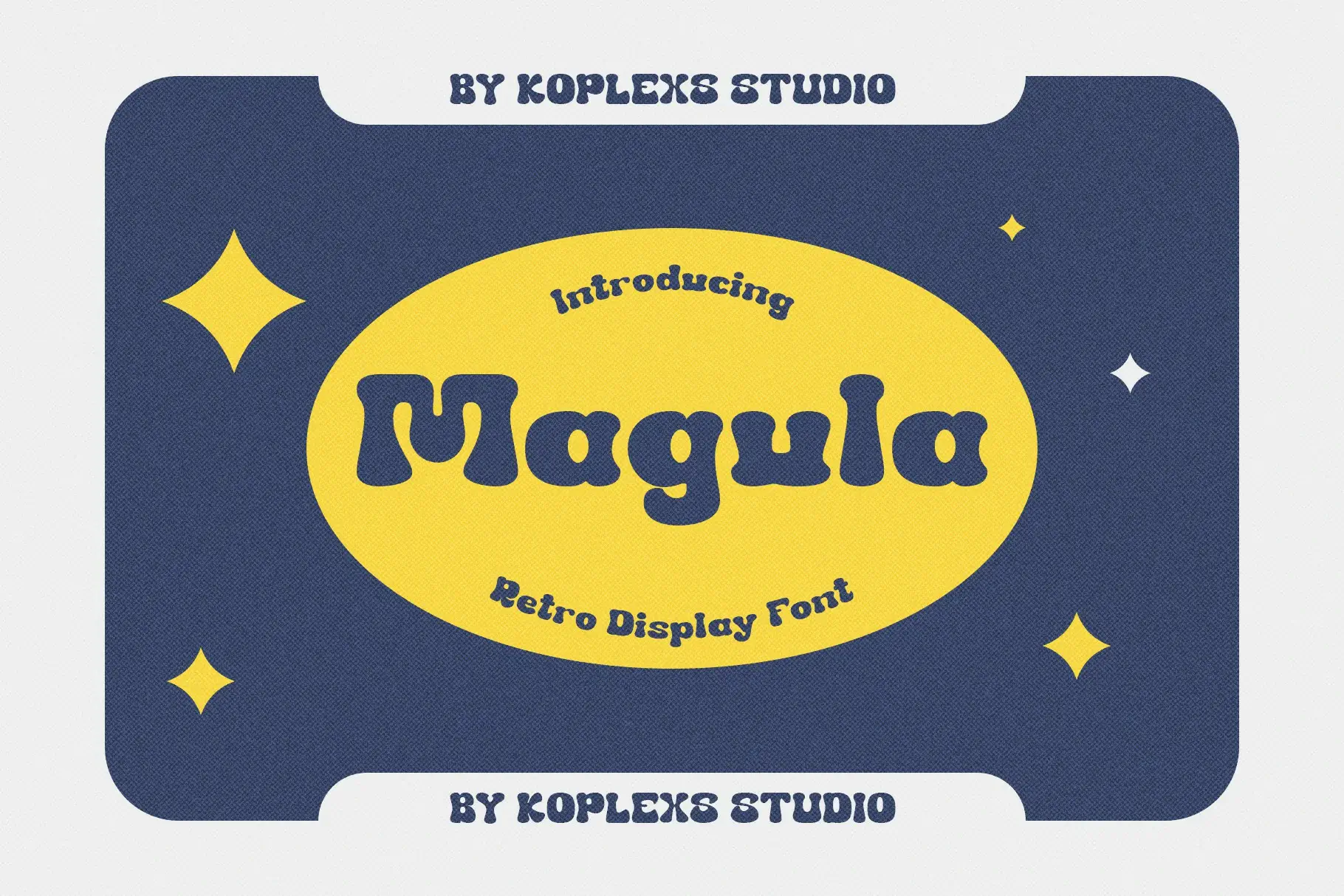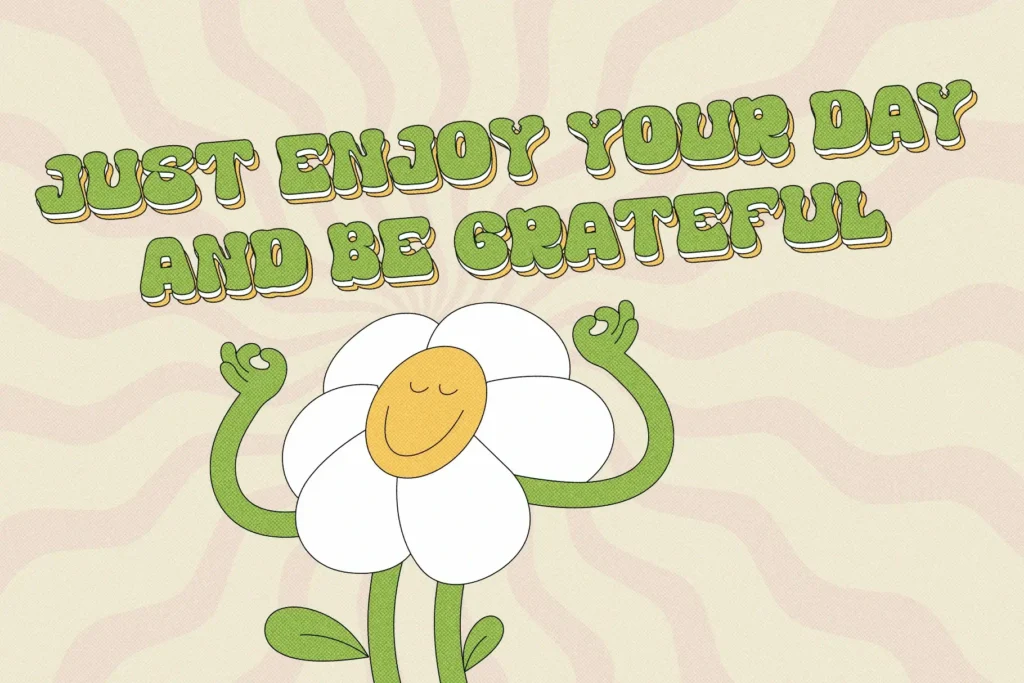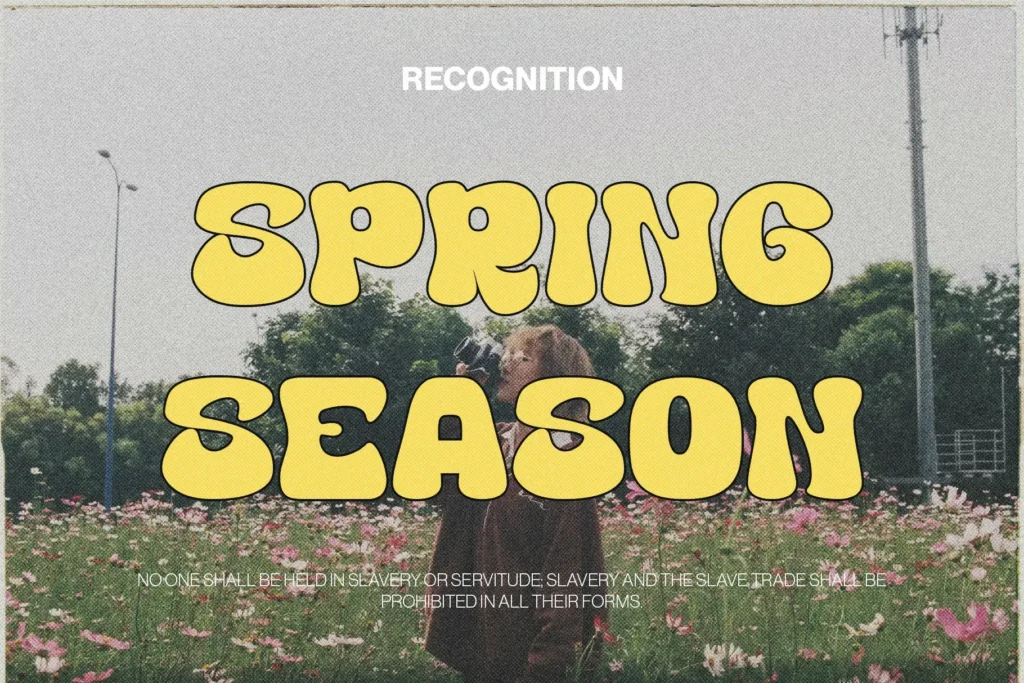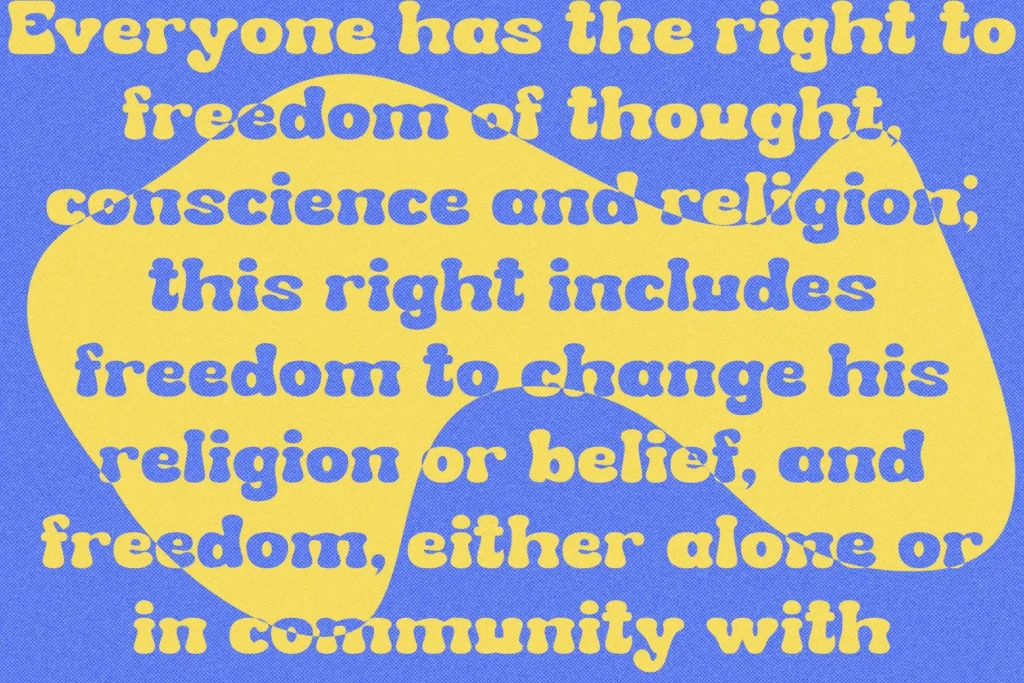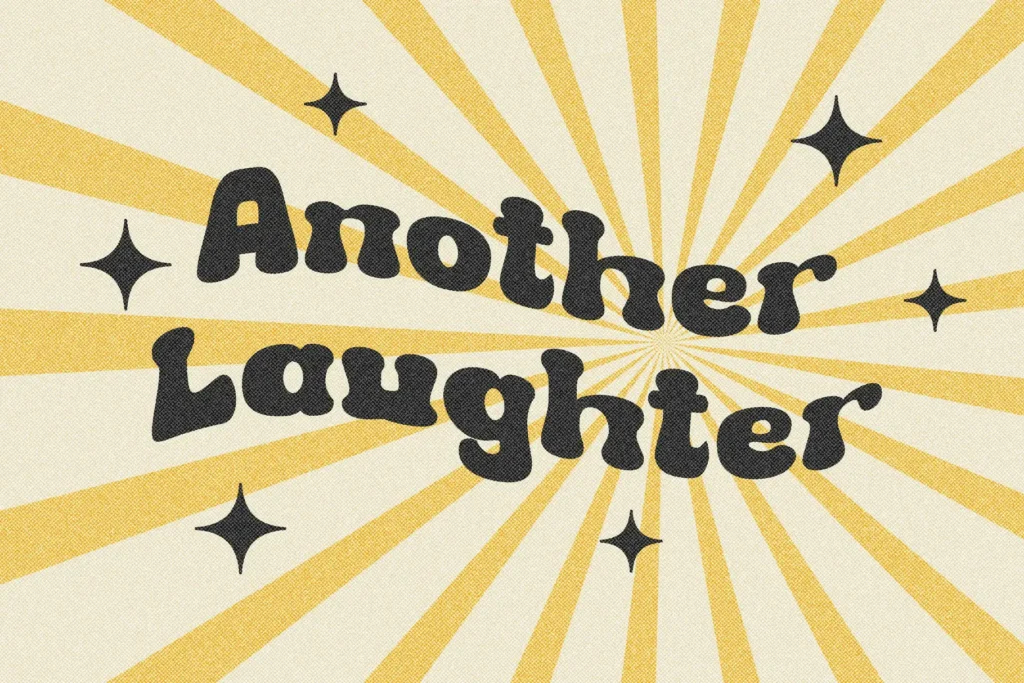
Magula Font
Magula Font – Retro Style Fancy Font
Magula Font is a bold, playful retro typeface designed for creators who enjoy mixing nostalgic aesthetics with modern design. Its smooth curves, bubble-inspired shapes, and groovy flow make it an eye-catching choice among retro style fonts. This font delivers the perfect balance between vintage charm and contemporary creativity, ideal for projects that require fancy text or stylish display lettering.
With its unique character, Magula allows designers to craft elegant font styles, cool letter shapes, and visually striking titles with ease. Whether you’re searching for a fancy font style, a groovy typeface, or bubble-style retro lettering, this font provides everything you need. Its expressive shapes make it a powerful choice for stylish text makers, branding projects, posters, and playful visual identities.
More than just a display font, Magula offers a complete creative solution for those exploring retro typefaces, fancy writing fonts, or cool name styles for branding. It works beautifully in decorative lettering, fancy symbols, and retro-inspired cursive concepts. Every curve reflects the spirit of vintage typography, blending smooth retro forms with modern design versatility for truly standout results.